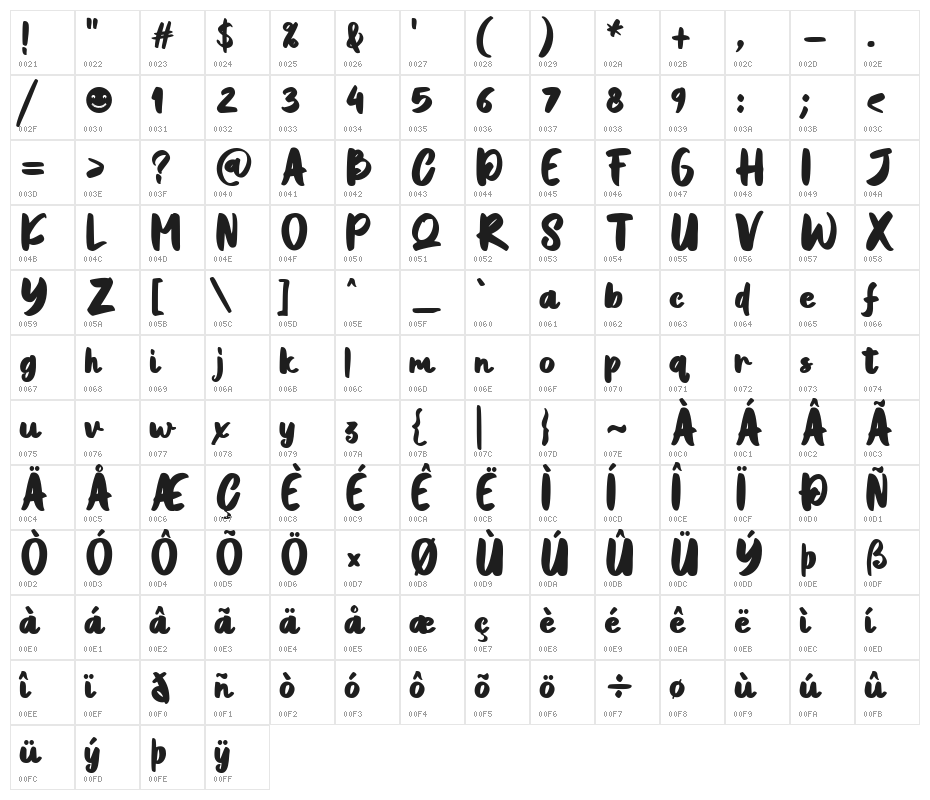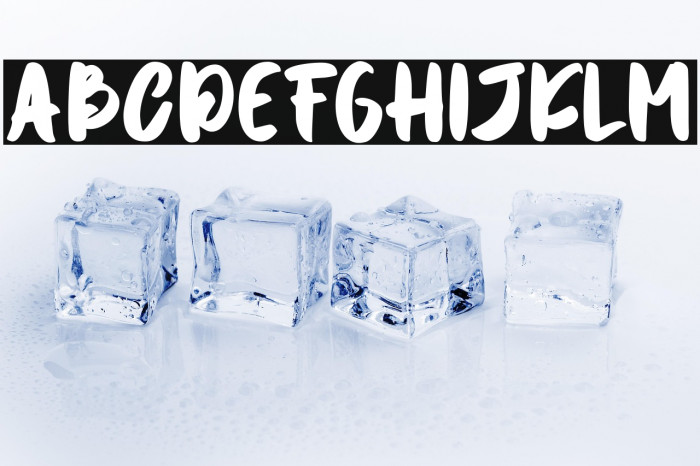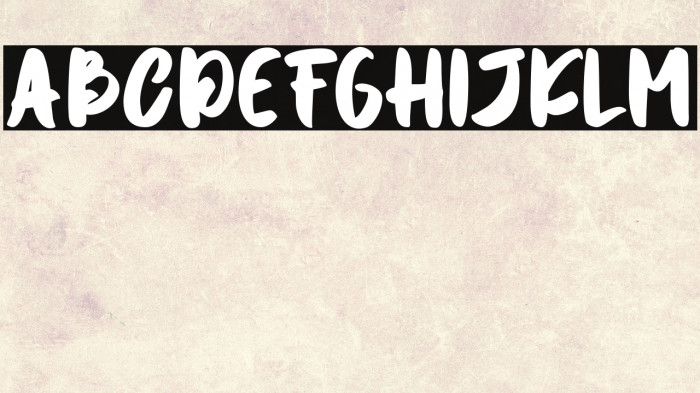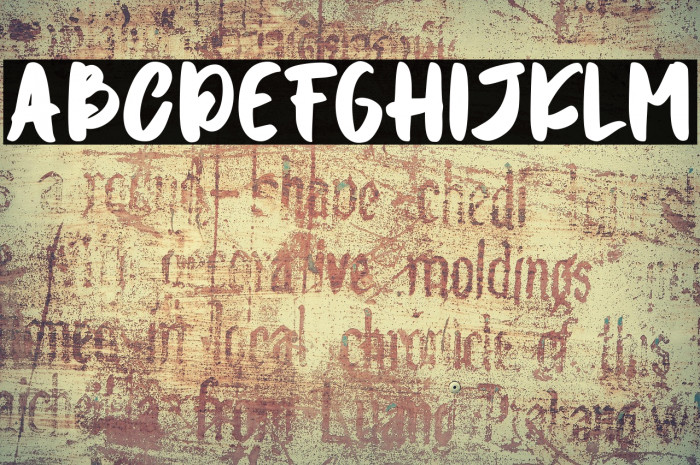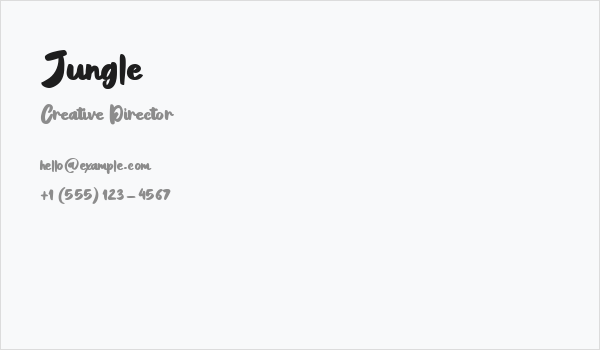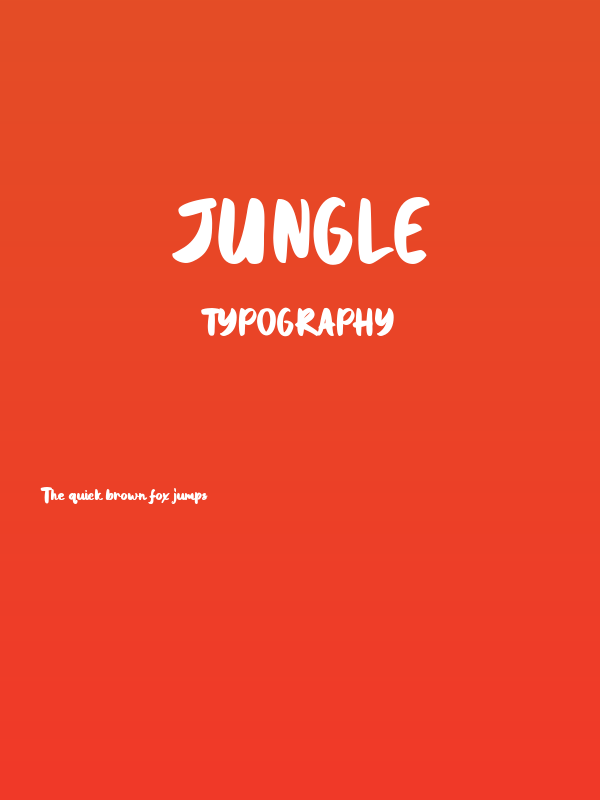
Jungle Font
Jungle Description
This font features a bold, playful style with a handwritten feel. The letters are thick and rounded, giving a sense of warmth and approachability. The uppercase and lowercase letters maintain a consistent style, with a slight slant that adds to the casual, informal vibe. The numbers and special characters are equally bold and expressive, matching the overall aesthetic. The font's design is reminiscent of brush strokes, with varying thickness that adds a dynamic and lively touch. It's perfect for projects that require a fun and energetic look.
| Overall Style | Playful, Casual |
| Proposed Projects | Ideal for children's books, playful branding, posters, and social media graphics. |